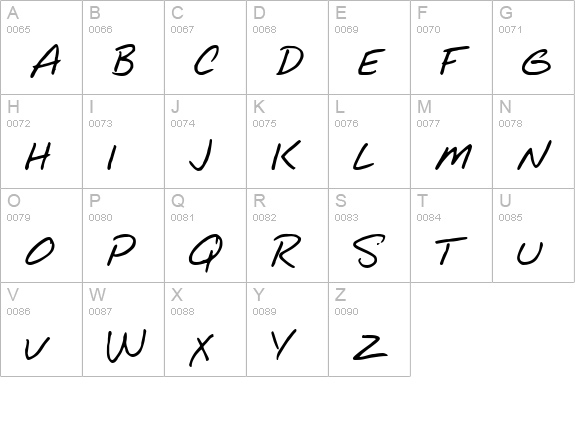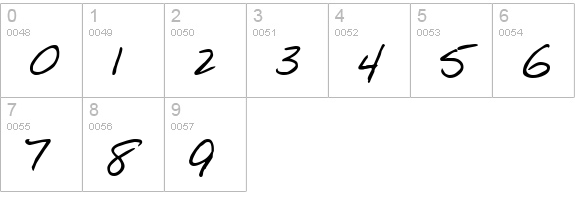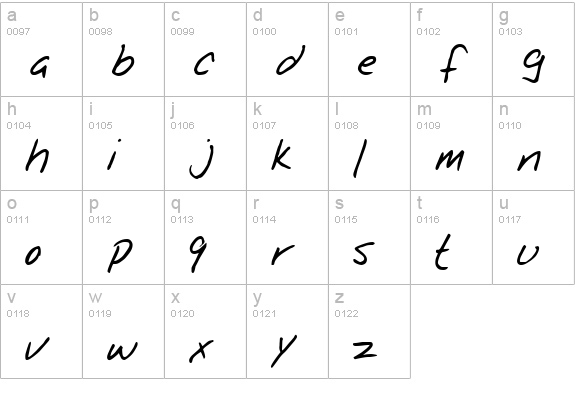
Gulliver Font Details
Introducing Gulliver Font, a modern and versatile typeface that is sure to make your designs stand out. With its clean lines and elegant curves, Gulliver Font is perfect for a wide range of projects, from branding to print materials to web design. What sets Gulliver Font apart is not just its stylish aesthetic, but also the fact that it is completely free to download. That's right - you can elevate your designs with this stunning font without having to spend a dime. Simply head over to FontsMarket.com to download Gulliver Font and start using it in your projects today. Whether you're working on a logo, poster, website, or any other design project, Gulliver Font is sure to add a touch of sophistication and flair. Don't miss out on this fantastic opportunity to enhance your designs with this beautiful and free font. Download Gulliver Font now and let your creativity soar!